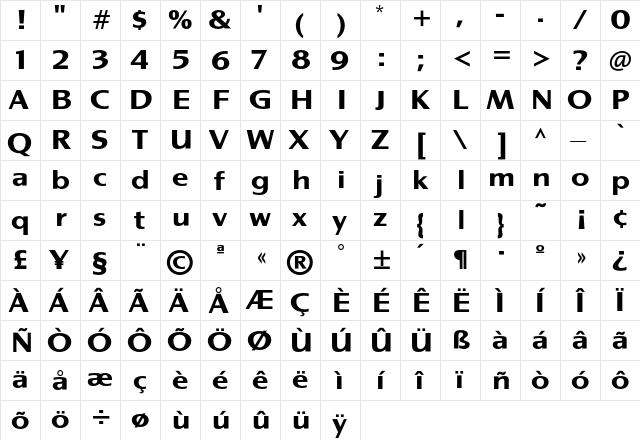
GrangeTF-Bold Regular Font Preview
GrangeTF-Bold Regular
GrangeTF-Bold Regular Font Details
| Foundry | Headliners PreSett |
Design Context for GrangeTF-Bold Typeface
GrangeTF-Bold offers clean, dependable letterforms without strong stylistic allegiance, making it a practical choice for designers who need flexibility. Its bold stroke weight gives it real presence on the page.